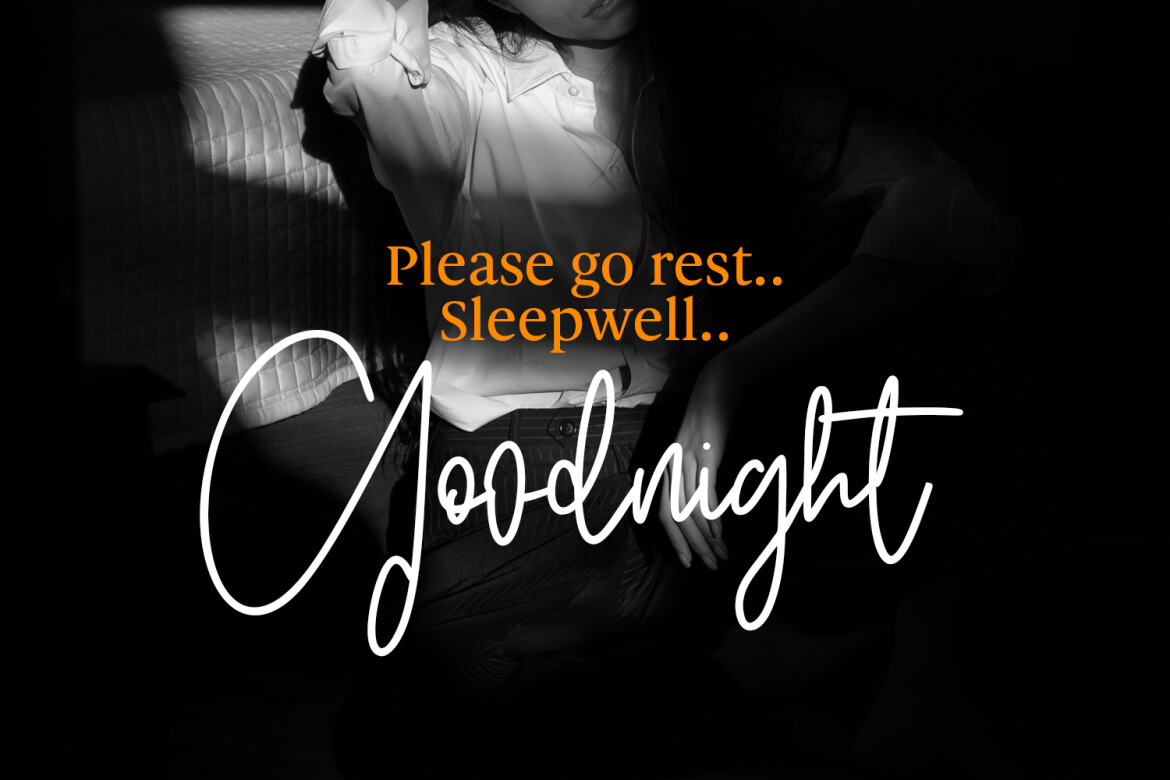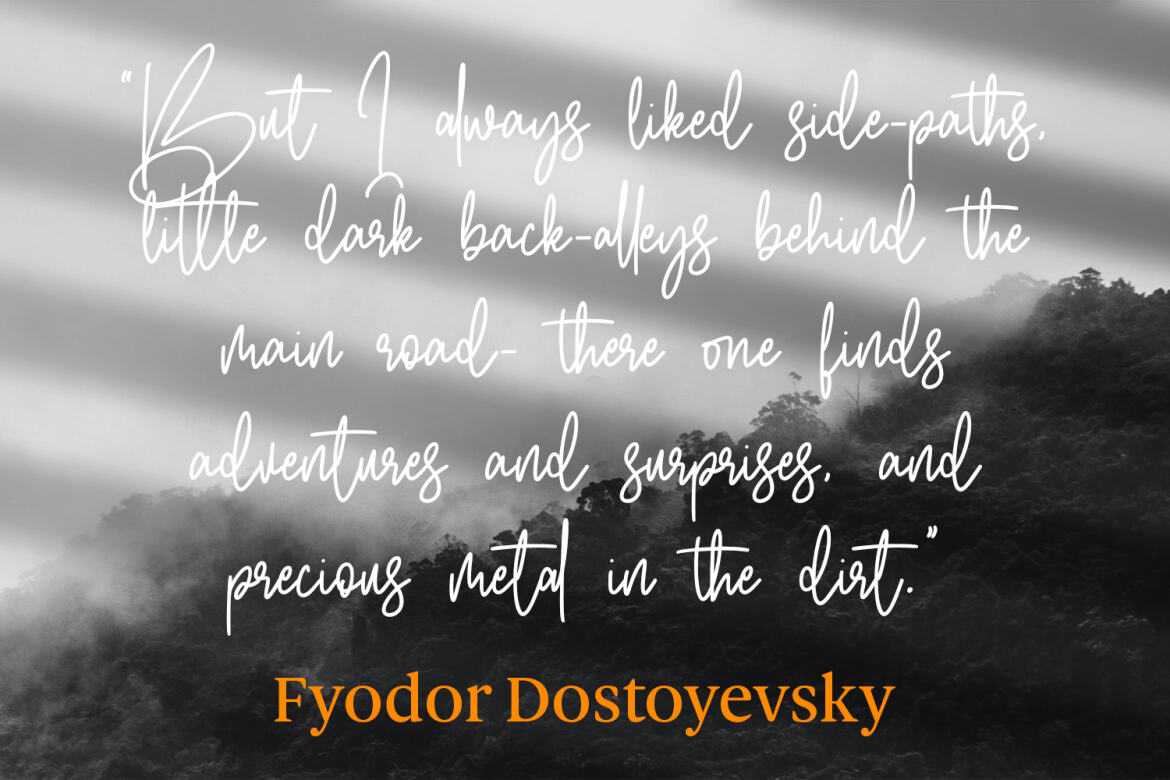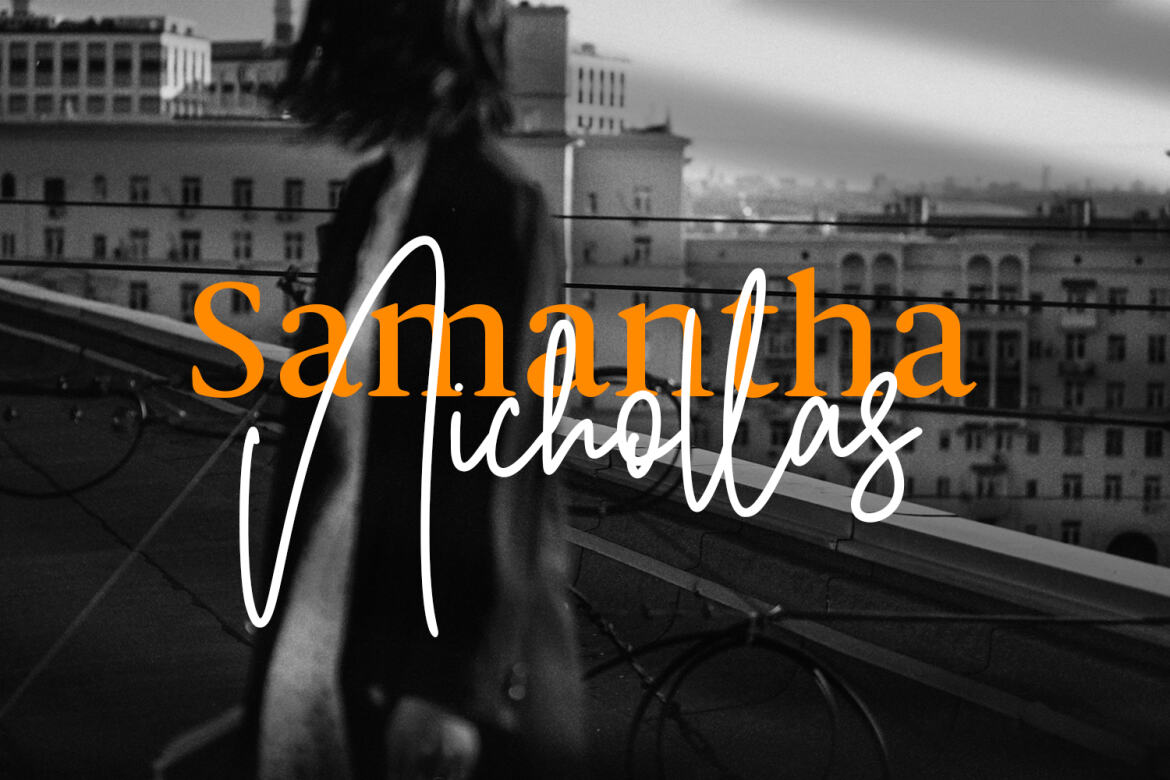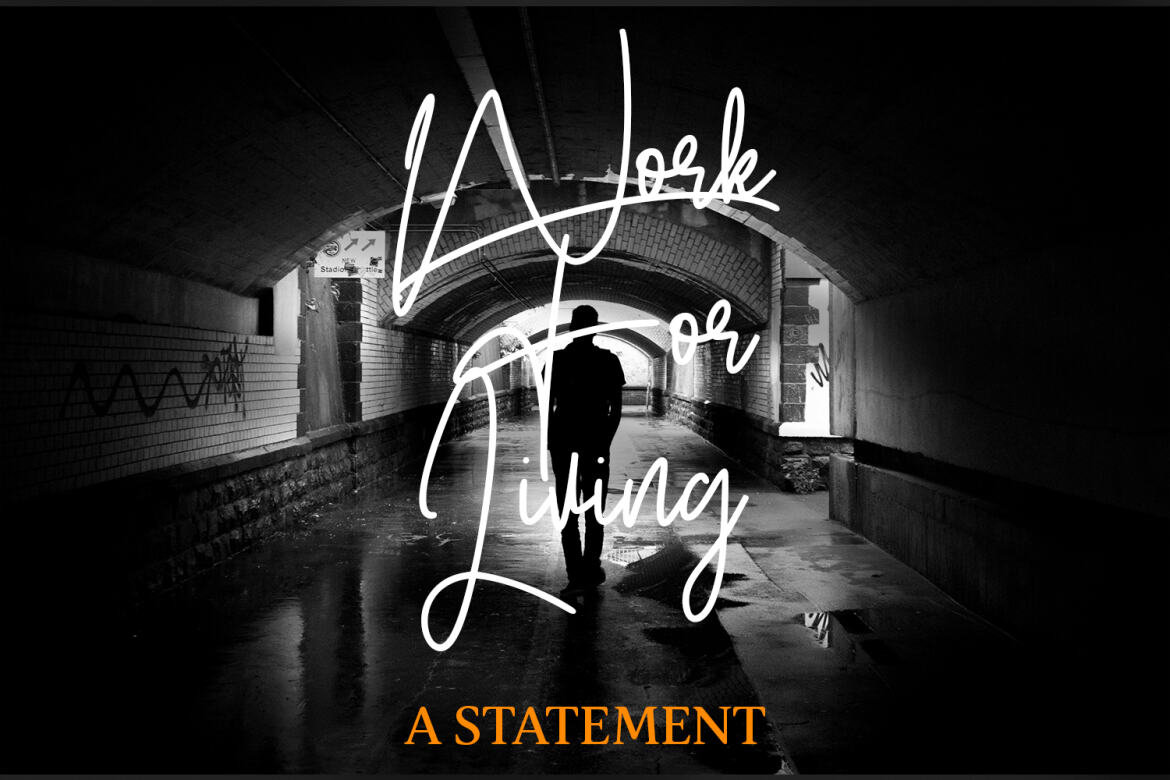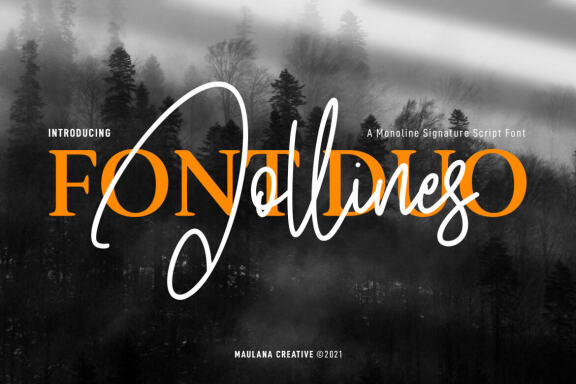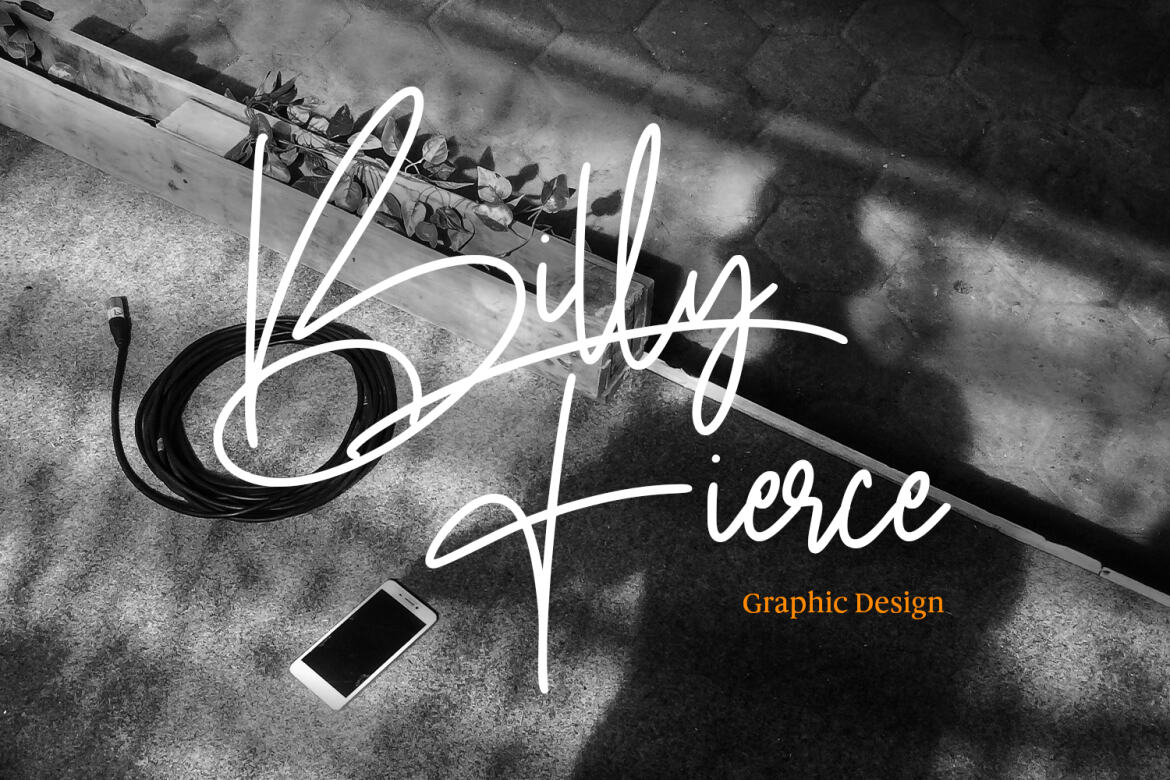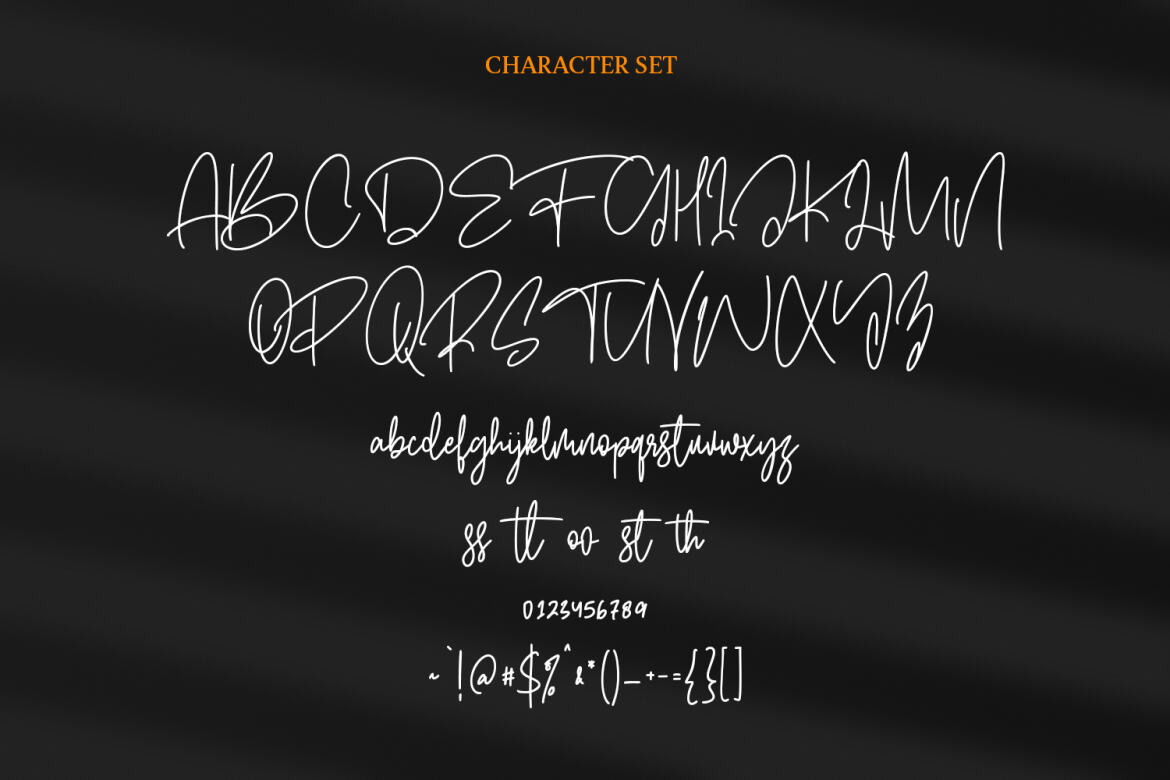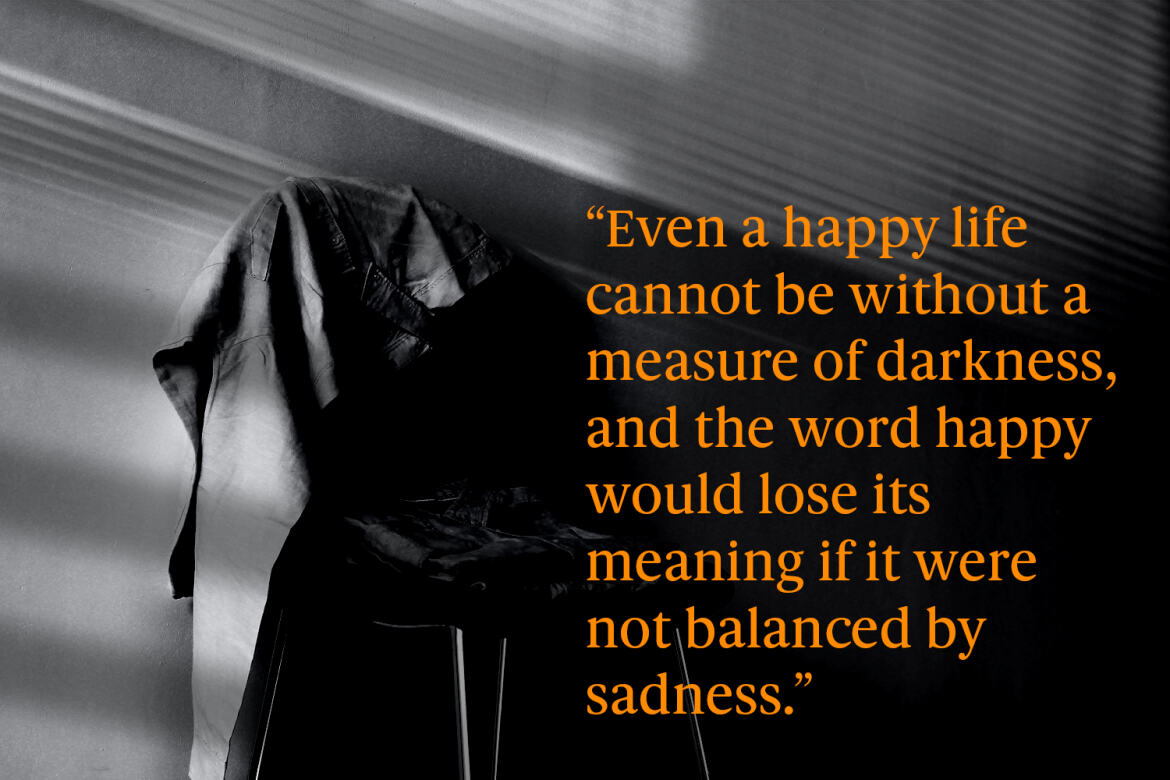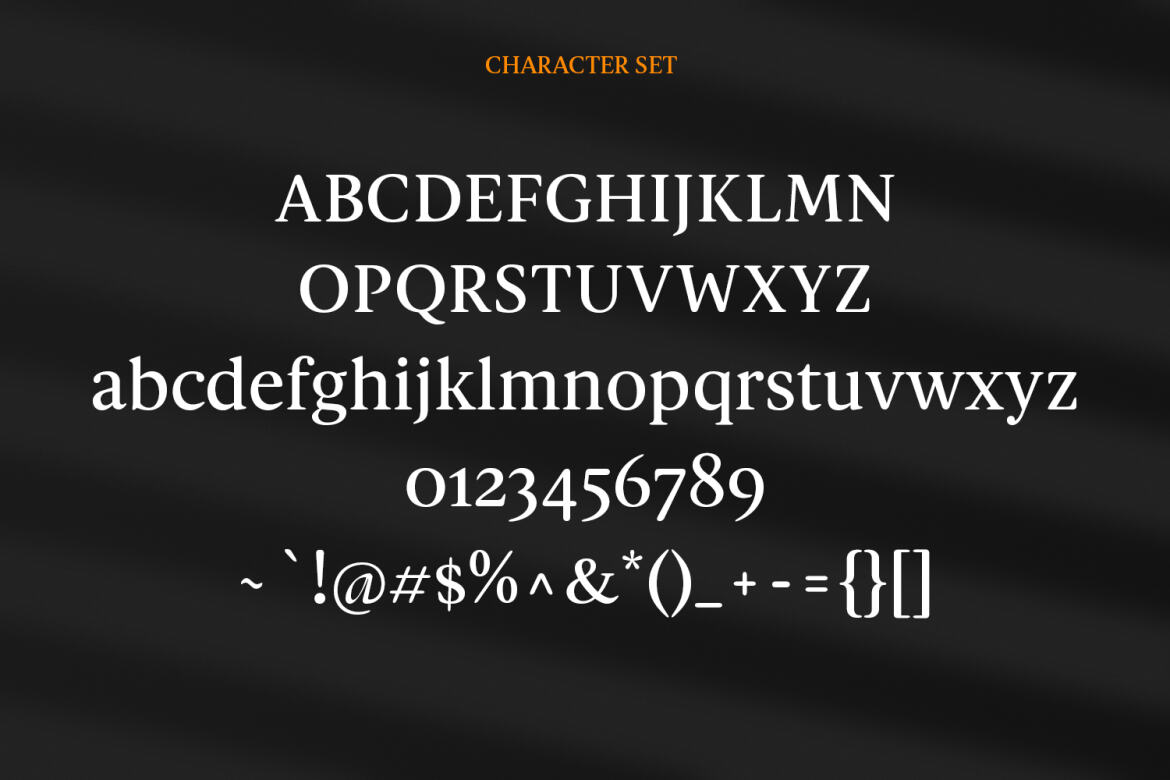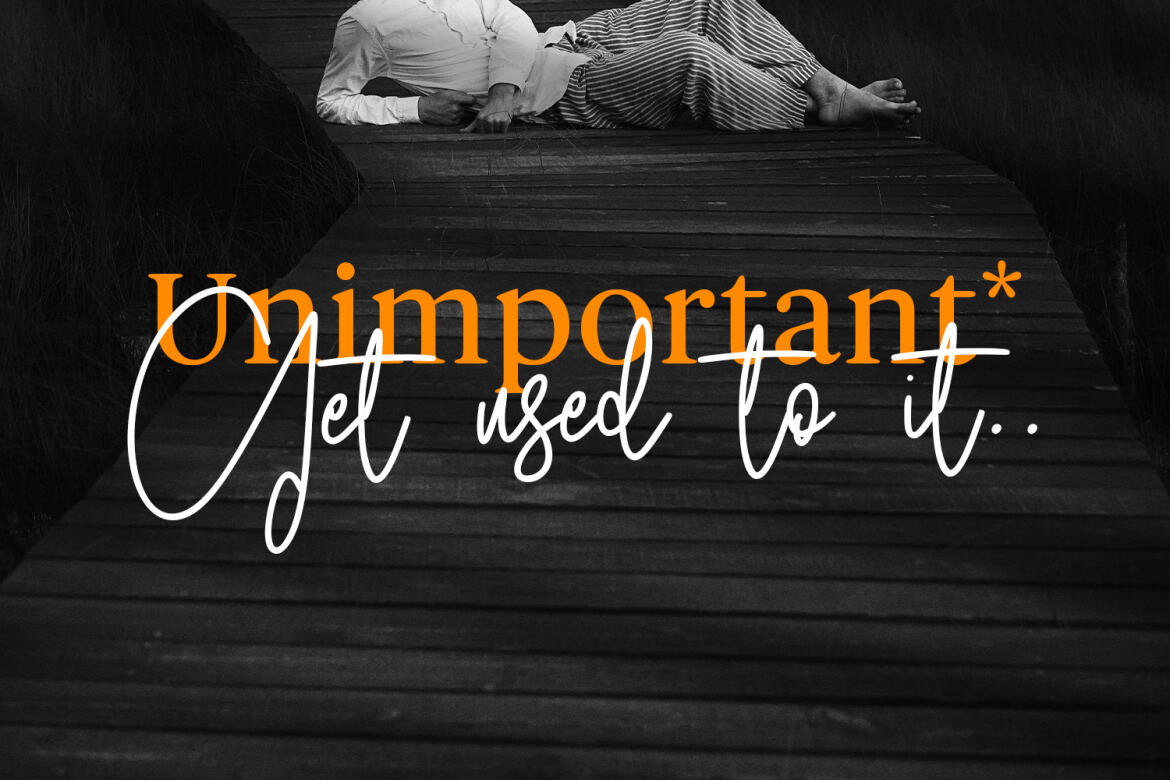
Jollines FREE Font Duo
Jollines is a signature script and serif font duo. With light mono-line stroke, fun character with a bit of ligatures. To give you an extra creative work. Jollines font support multilingual more than 100+ language. This font is good for logo design, Social media, Movie Titles, Books Titles, a short text even a long text letter and good for your secondary text font with sans or serif. Make a stunning work with Jollines font.